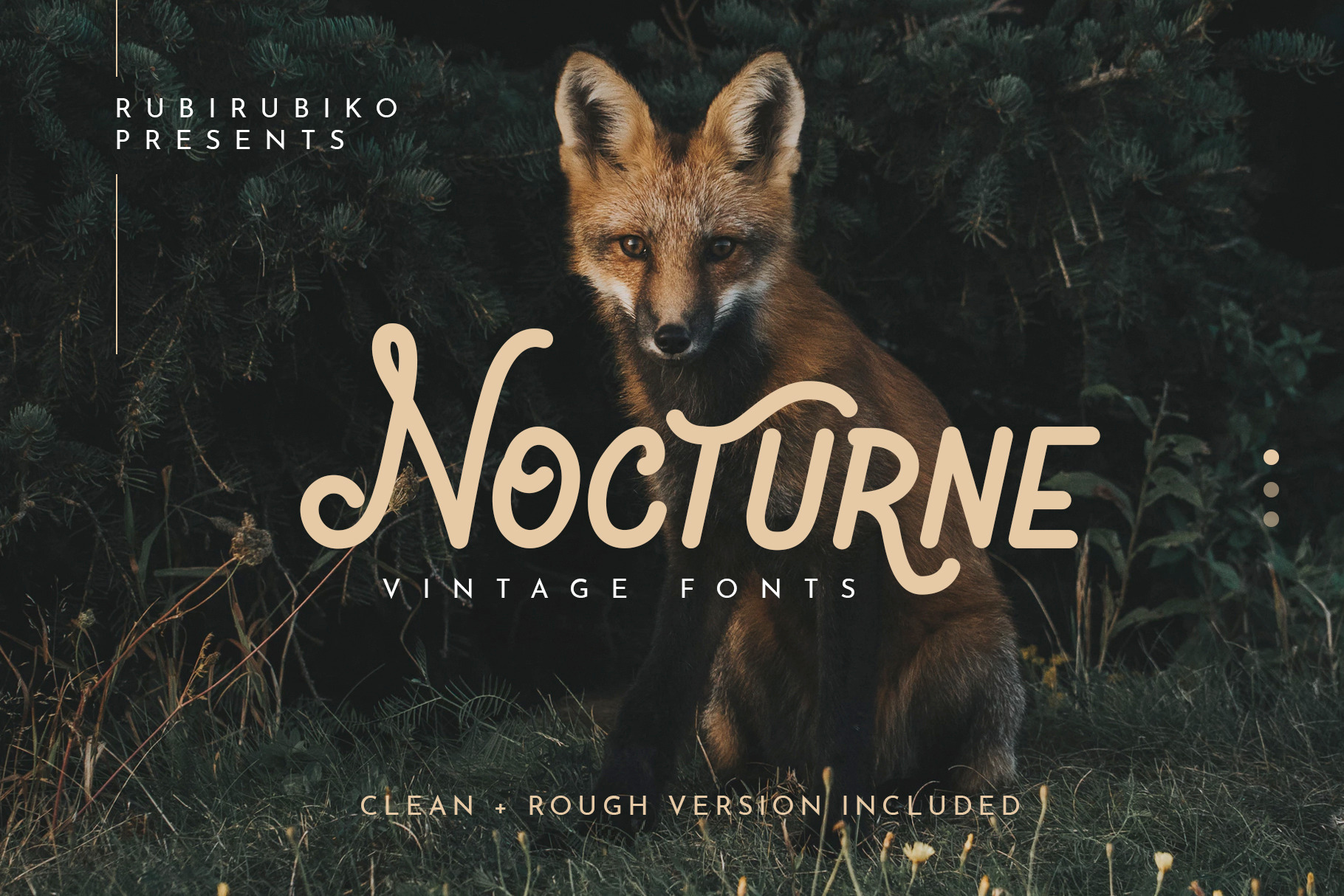
Nocturne - Vintage Fonts
Create a Extraordinary Typography / lettering results by using Nocturne - Vintage Font. Best match for logos, header, Titles, Prints & other Creative process possibilities.
- Ton of glyphs included
- Good pair with other font
- Clean Results